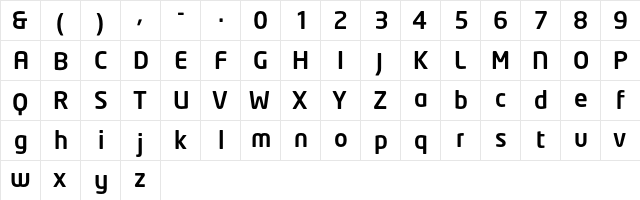
NeoTech Medium Font Preview
NeoTech Medium
NeoTech Medium Font Details
Design Context for NeoTech Typeface
NeoTech channels digital-age aesthetics through its sharp, structured letterforms — ideal for brands that want to signal innovation.
Pro Tip: Use NeoTech in combination with a neutral sans for body text. Let it define the brand voice in headlines while keeping reading comfortable elsewhere.